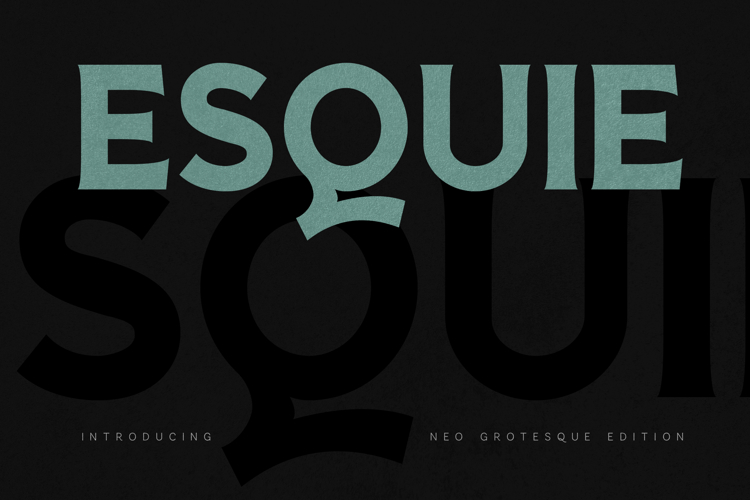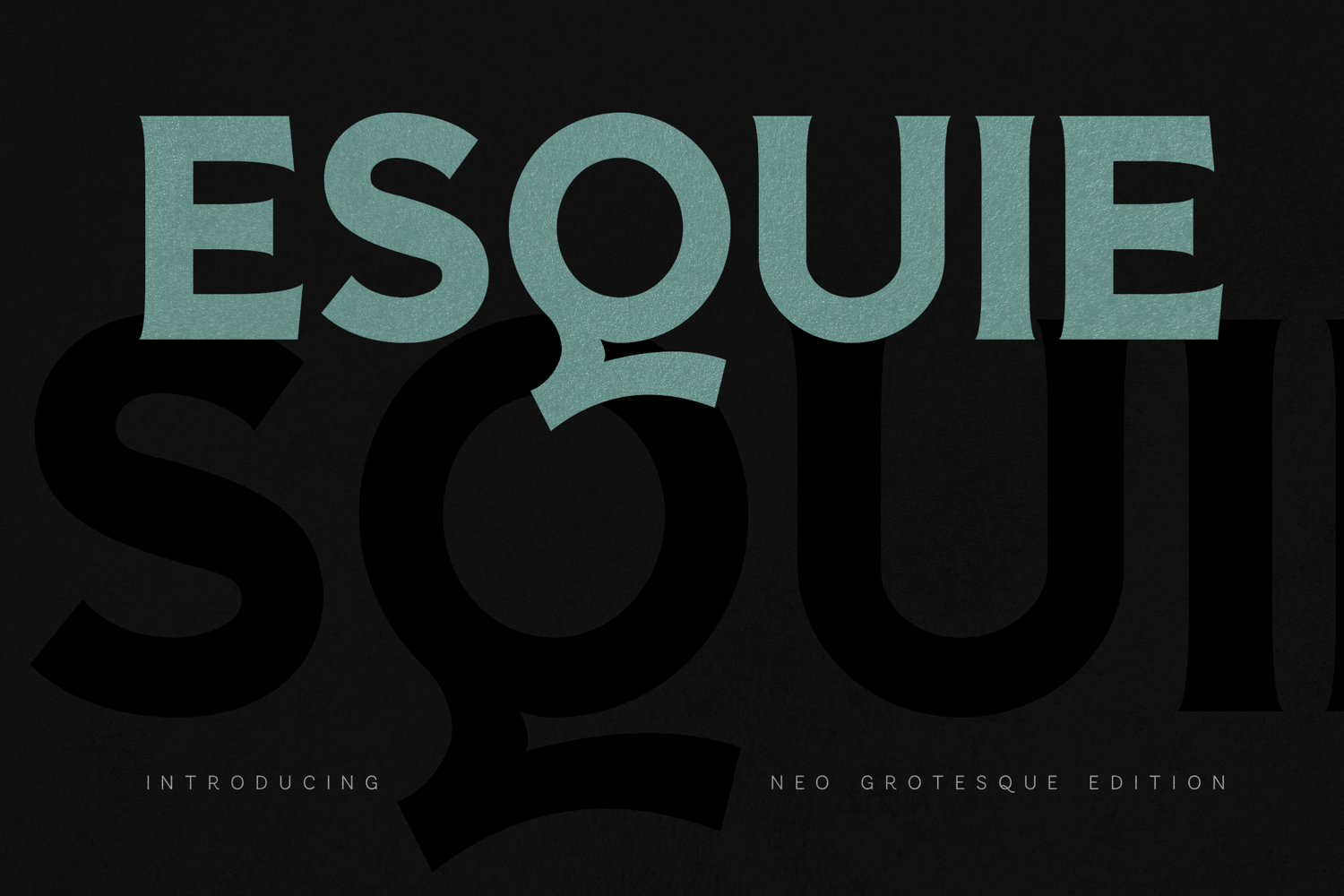
Modern Heritage Minimalist Sans Serif Font
Esquie is a modern neo-grotesque display typeface built for confident branding and bold communication.
Designed with structured proportions and softened geometric detailing, Esquie balances clarity with personality. It delivers strong headlines, powerful logo marks, and clean editorial systems without feeling cold or mechanical.
Its wide stance and controlled curves make it perfect for contemporary identities that demand presence.